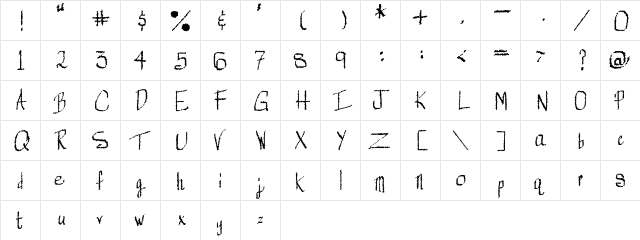
Mechanical Rorschach Regular
| Foundry | Jennifer Heinicke, Fonts-A-Go-Go |
| Designer | Jennifer Heinicke, Fonts-A-Go-Go |
Design Context for Mechanical Rorschach Typeface
Mechanical Rorschach is a composed and adaptable typeface that performs quietly and consistently across a wide range of design contexts.